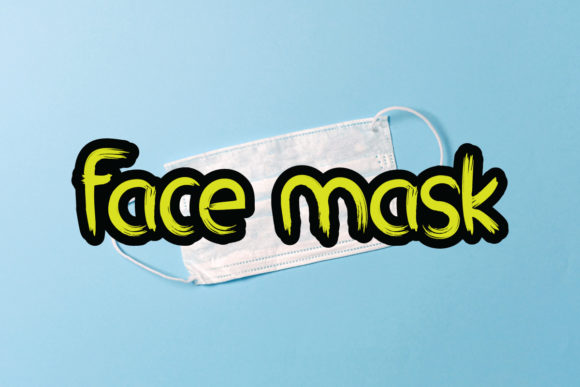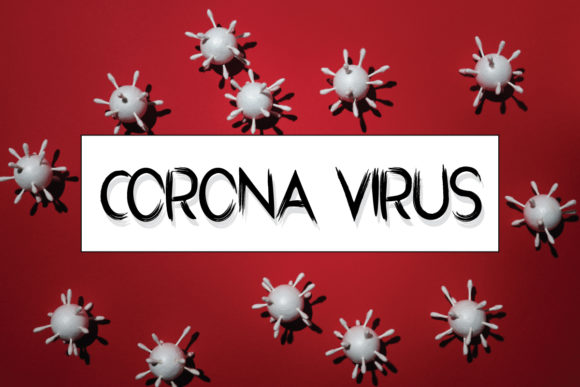
Covid-19 Font: The Bold and Brushed Display Font You Need for Your Creative Projects
The COVID-19 pandemic has left an indelible mark on the world, and its impact is still being felt across various industries, including design. As a result, a new font has emerged, inspired by the pandemic – the Covid-19 Font. This bold and brushed display font is making waves in the design community, and for good reason. In this article, we’ll explore what makes the Covid-19 Font unique, its features, and how you can use it to elevate your creative projects.
What is Covid-19 Font?
Covid-19 Font is a bold and brushed display font that is inspired by the pandemic. Its unique design makes it perfect for adding a touch of drama to your creative projects. The font features bold, expressive brushstrokes that give it a distinctive look. Whether you’re working on a logo, poster, or social media graphic, the Covid-19 Font is sure to make your design stand out.
Key Features of Covid-19 Font
The Covid-19 Font has several key features that make it a must-have for designers and crafters:
- Bold and Brushed Design: The font features bold, expressive brushstrokes that give it a distinctive look.
- High-Quality Resolution: The font is available in high-quality resolution, making it perfect for both print and digital applications.
- Versatile: The font can be used for a wide range of creative projects, from logos and posters to social media graphics and more.
How to Use Covid-19 Font in Your Creative Projects
The Covid-19 Font is a versatile font that can be used in a variety of creative projects. Here are a few ideas to get you started:
- Logos and Branding: Use the Covid-19 Font to create a bold and eye-catching logo for your business or brand.
- Posters and Flyers: Add a touch of drama to your posters and flyers with the Covid-19 Font.
- Social Media Graphics: Use the font to create eye-catching social media graphics that will help your content stand out.
- Packaging Design: Use the Covid-19 Font to add a bold and eye-catching touch to your packaging design.
Benefits of Using Covid-19 Font
There are several benefits to using the Covid-19 Font in your creative projects:
- Unique and Eye-Catching: The font’s bold and brushed design makes it unique and eye-catching.
- Time-Saving: The font is easy to use and can save you time in your design projects.
- Professional-Looking: The font’s high-quality resolution and bold design make it perfect for creating professional-looking designs.
Tips for Using Covid-19 Font
Here are a few tips for using the Covid-19 Font in your creative projects:
- Use it Sparingly: The Covid-19 Font is a bold font, so use it sparingly to avoid overwhelming your design.
- Experiment with Colors: The font looks great in a variety of colors, so experiment with different colors to find the one that works best for your design.
- Pair it with Other Fonts: The Covid-19 Font pairs well with other fonts, so experiment with different font combinations to find the one that works best for your design.